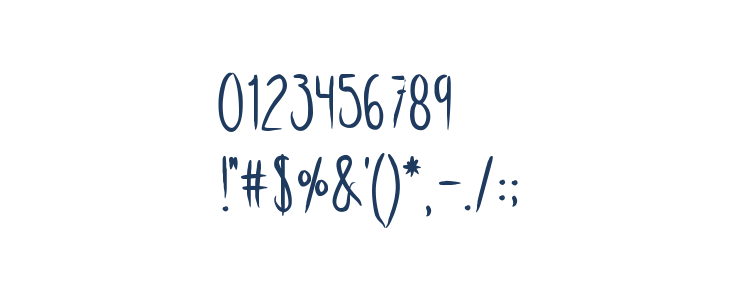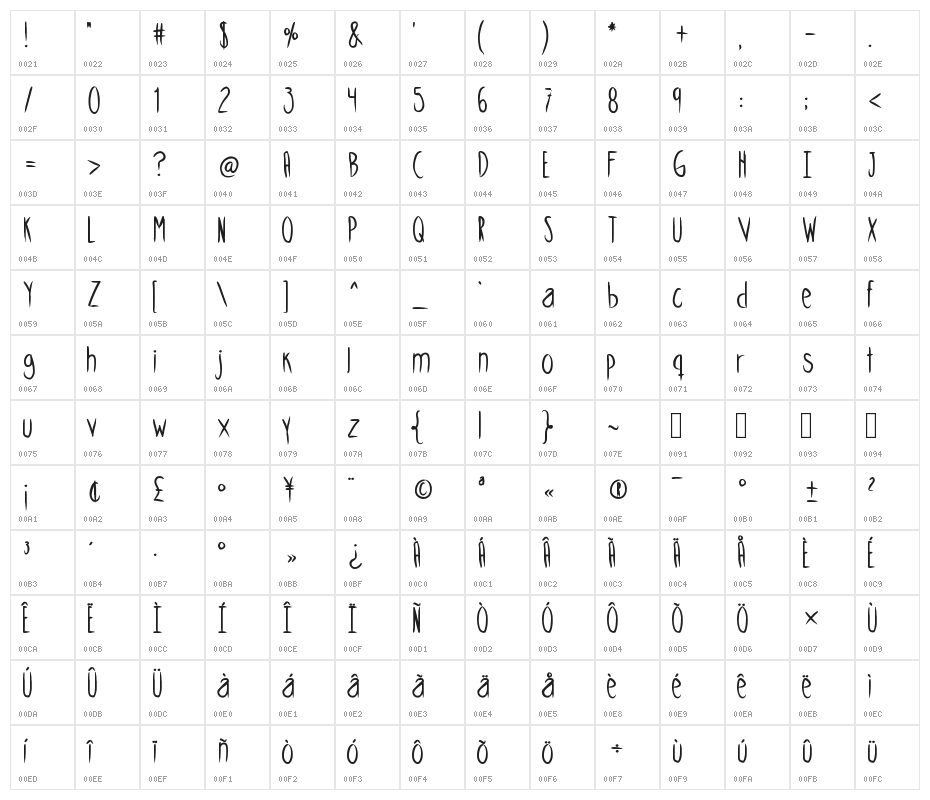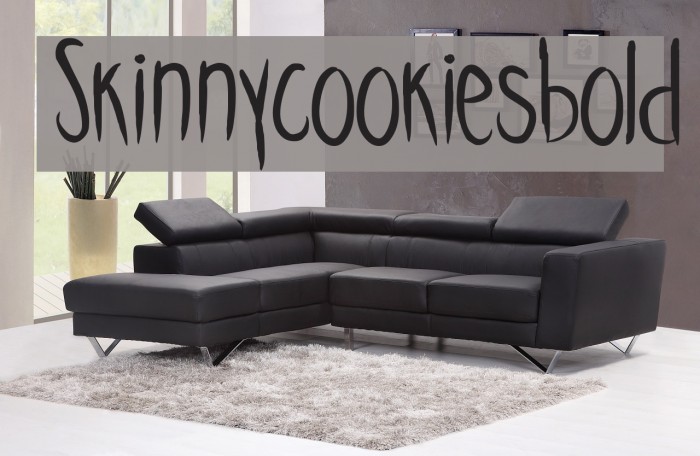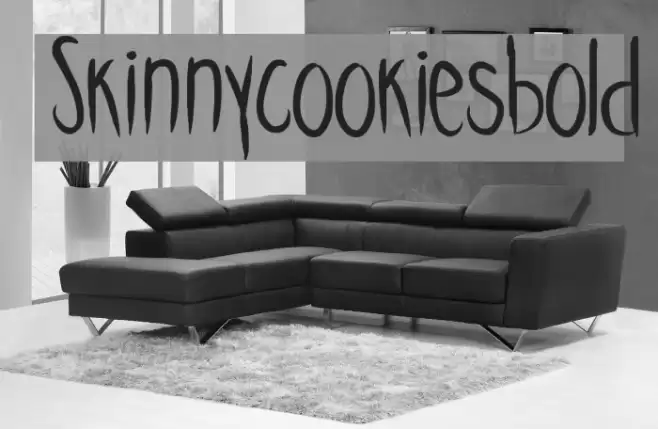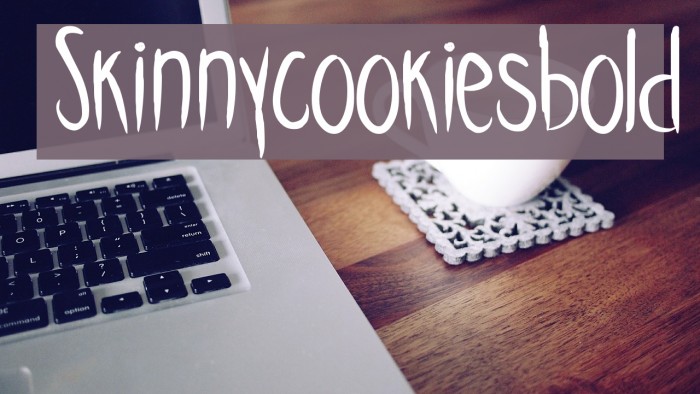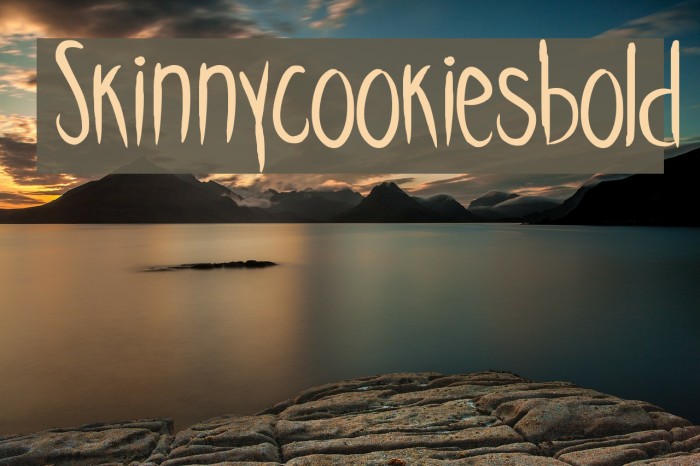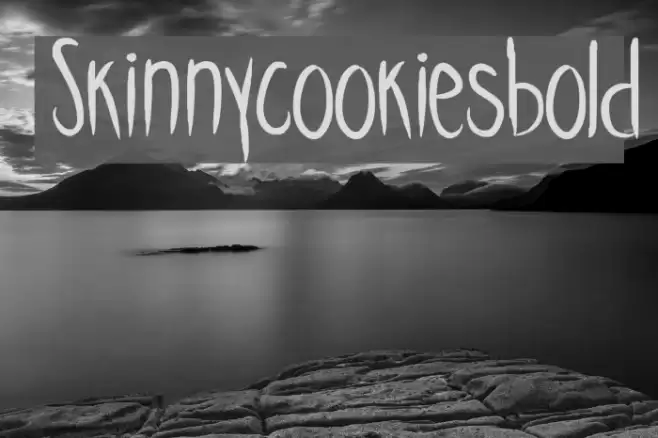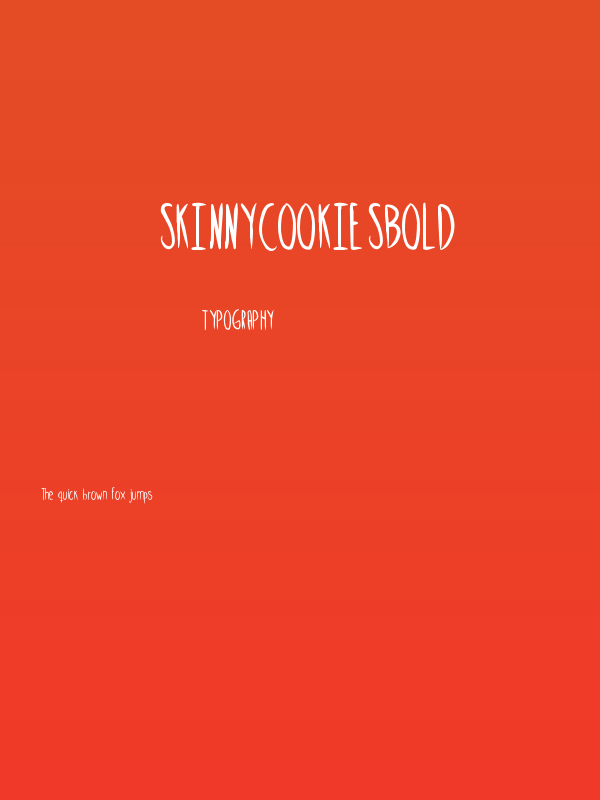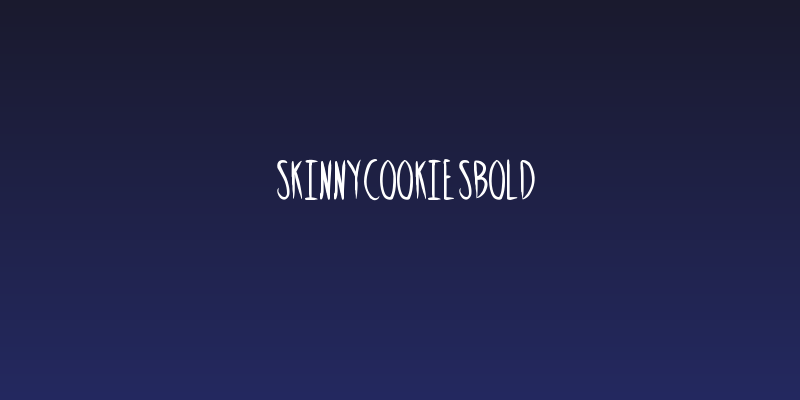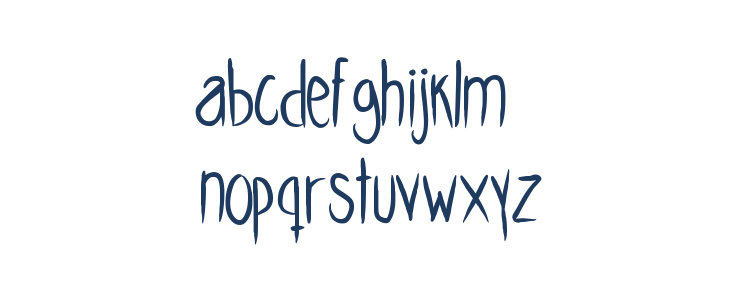
Skinnycookiesbold Font
Skinnycookiesbold Description
This font features a playful and whimsical style with tall, narrow characters that have a hand-drawn appearance. The strokes are uneven, adding a casual and informal feel. The uppercase and lowercase letters maintain a consistent height, contributing to a cohesive look. The numbers and special characters follow the same quirky design, making them stand out. This font's unique personality makes it suitable for creative projects that require a touch of fun and individuality.
| Proposed Projects | Ideal for children's books, greeting cards, playful branding, and creative posters. |